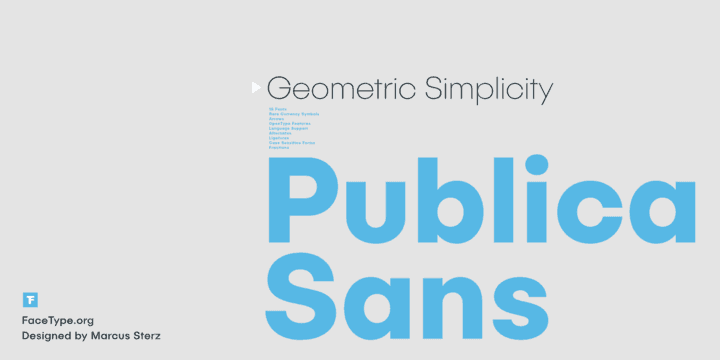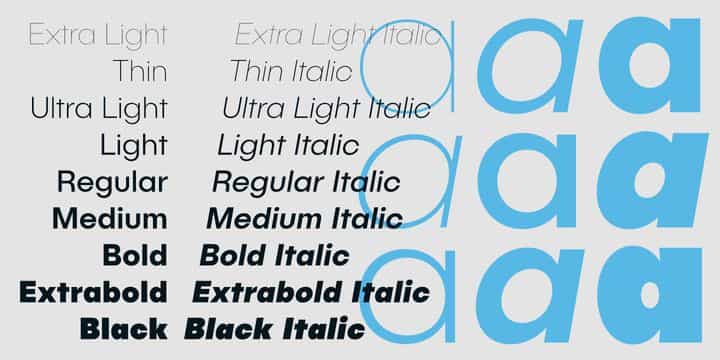
Publica Sans is a multifaceted geometric typeface with numerous OpenType features to help in creating stunning typography. These characteristics are the arrows, alternates and rare currency symbol forms which change according to the case as well as the different figures types and even the discretionary Ligatures. Publica Sands is accompanied by its two siblings – Publica Play and Publica Slab.